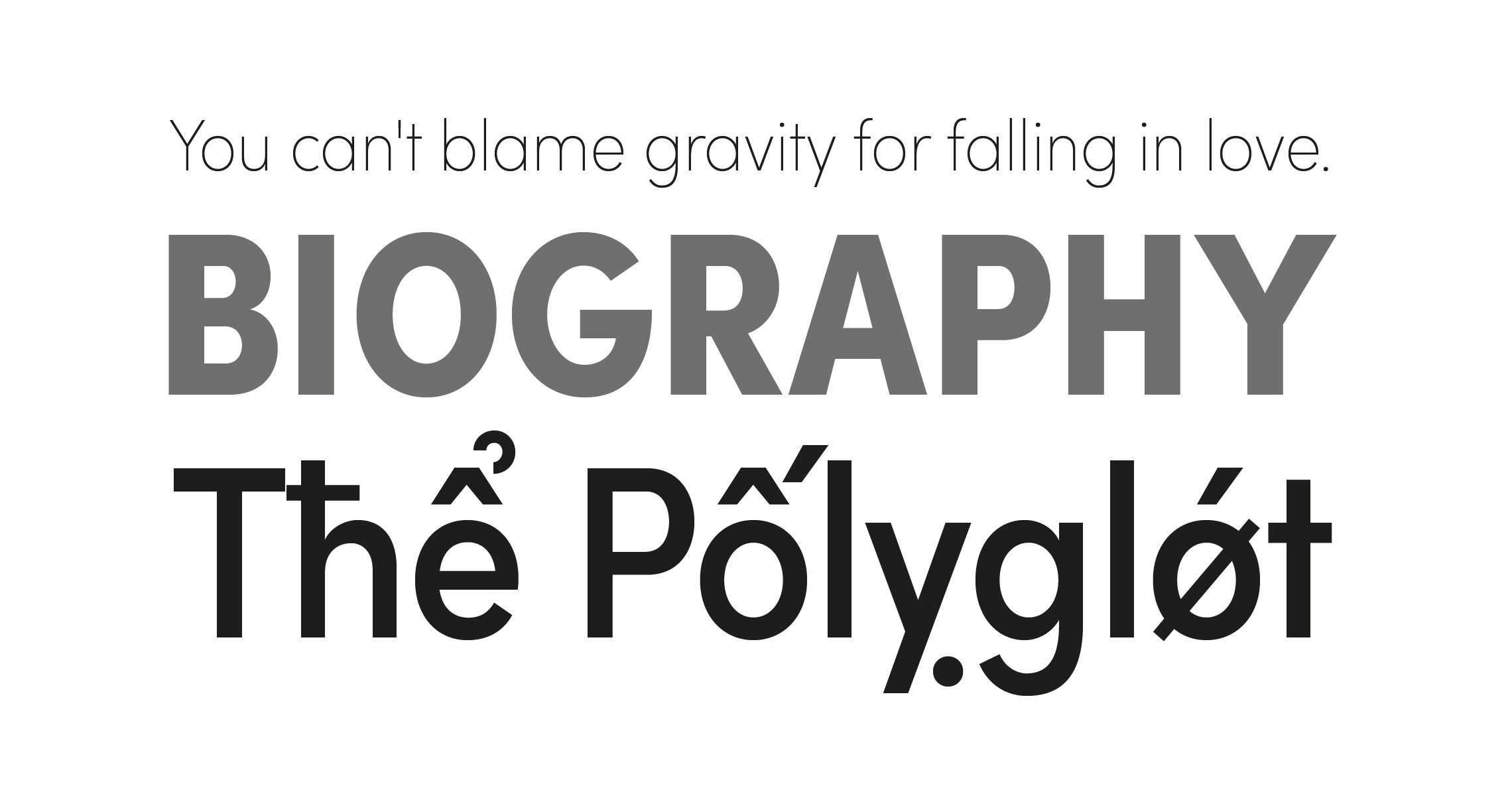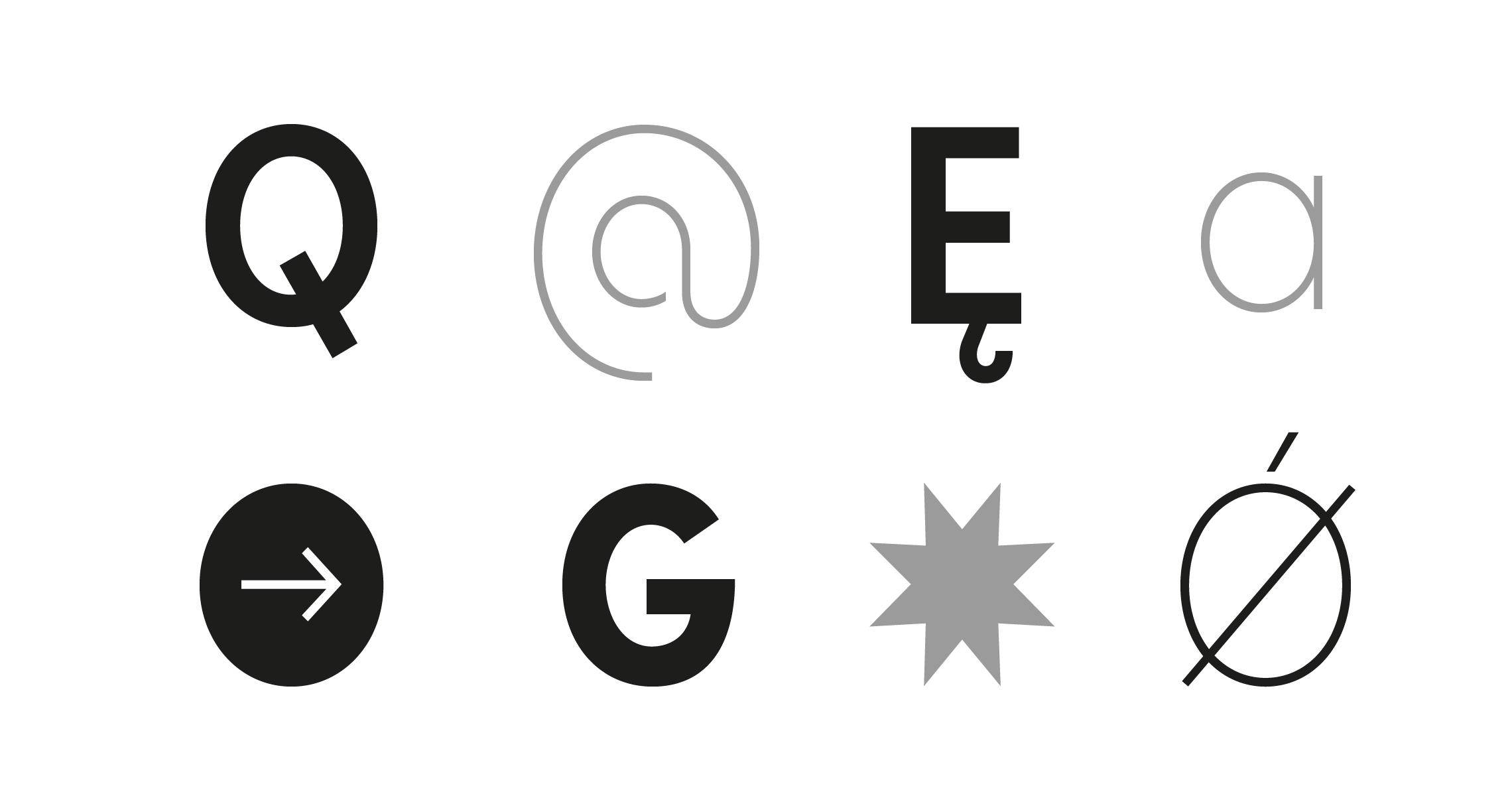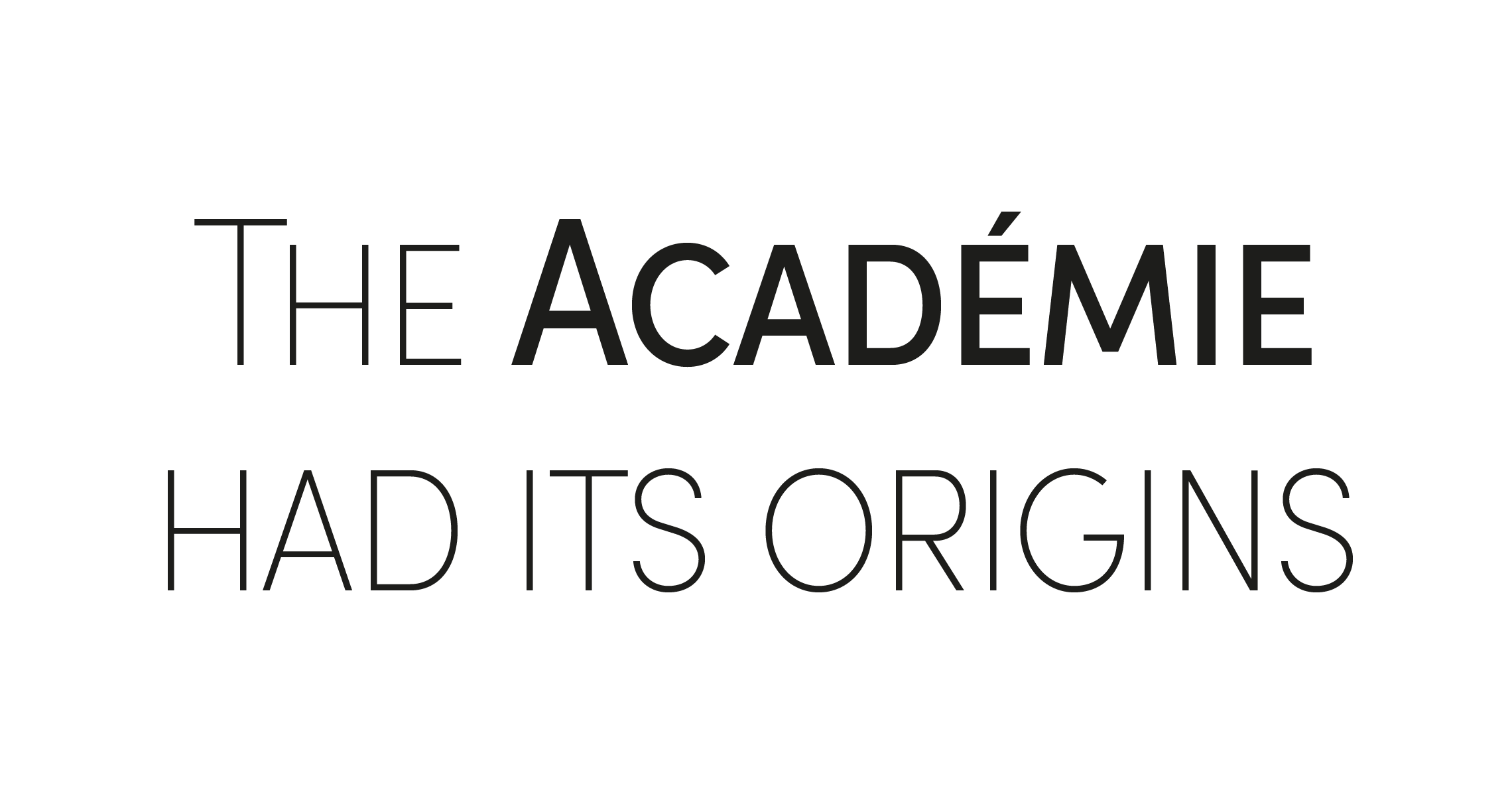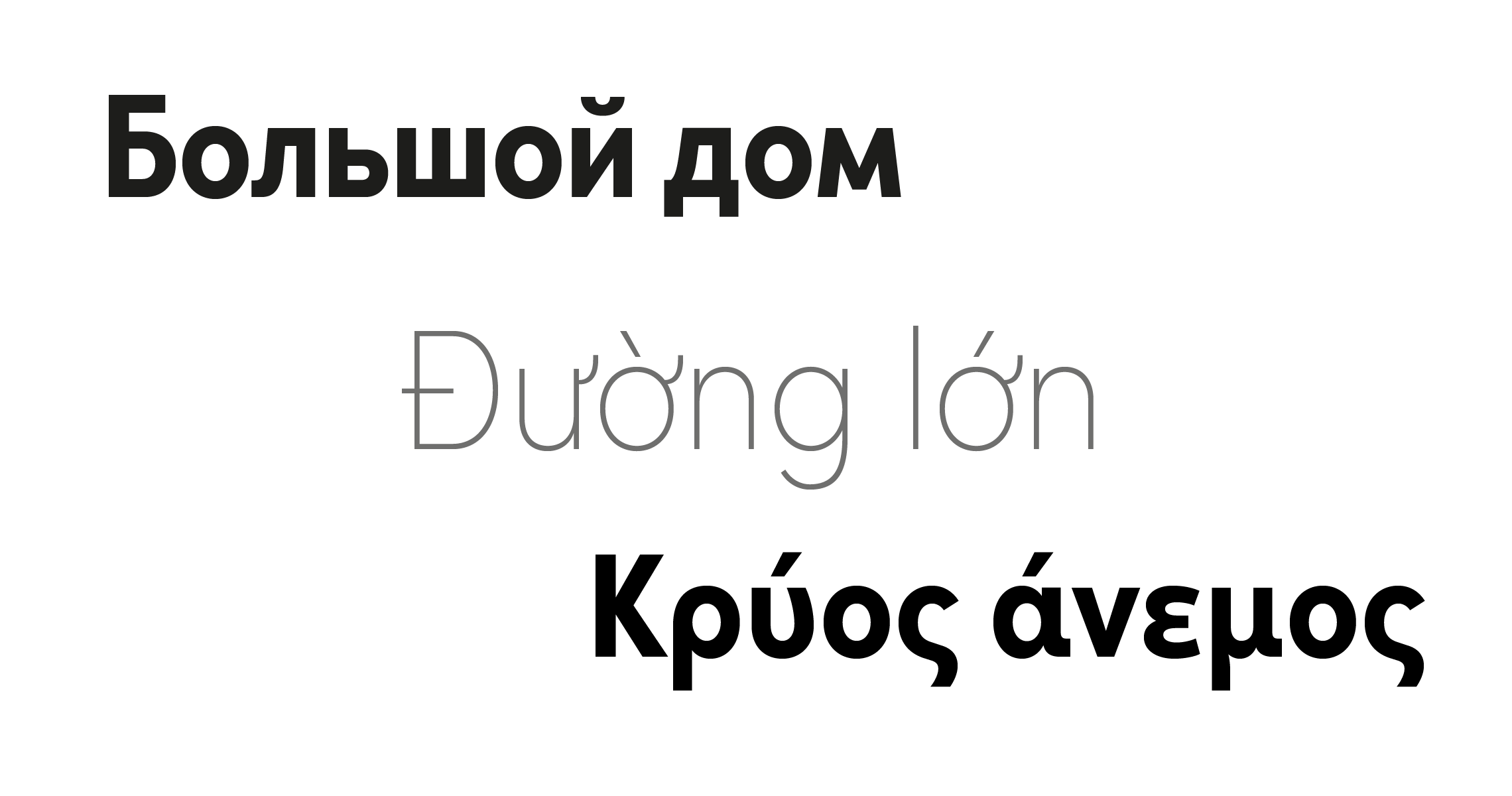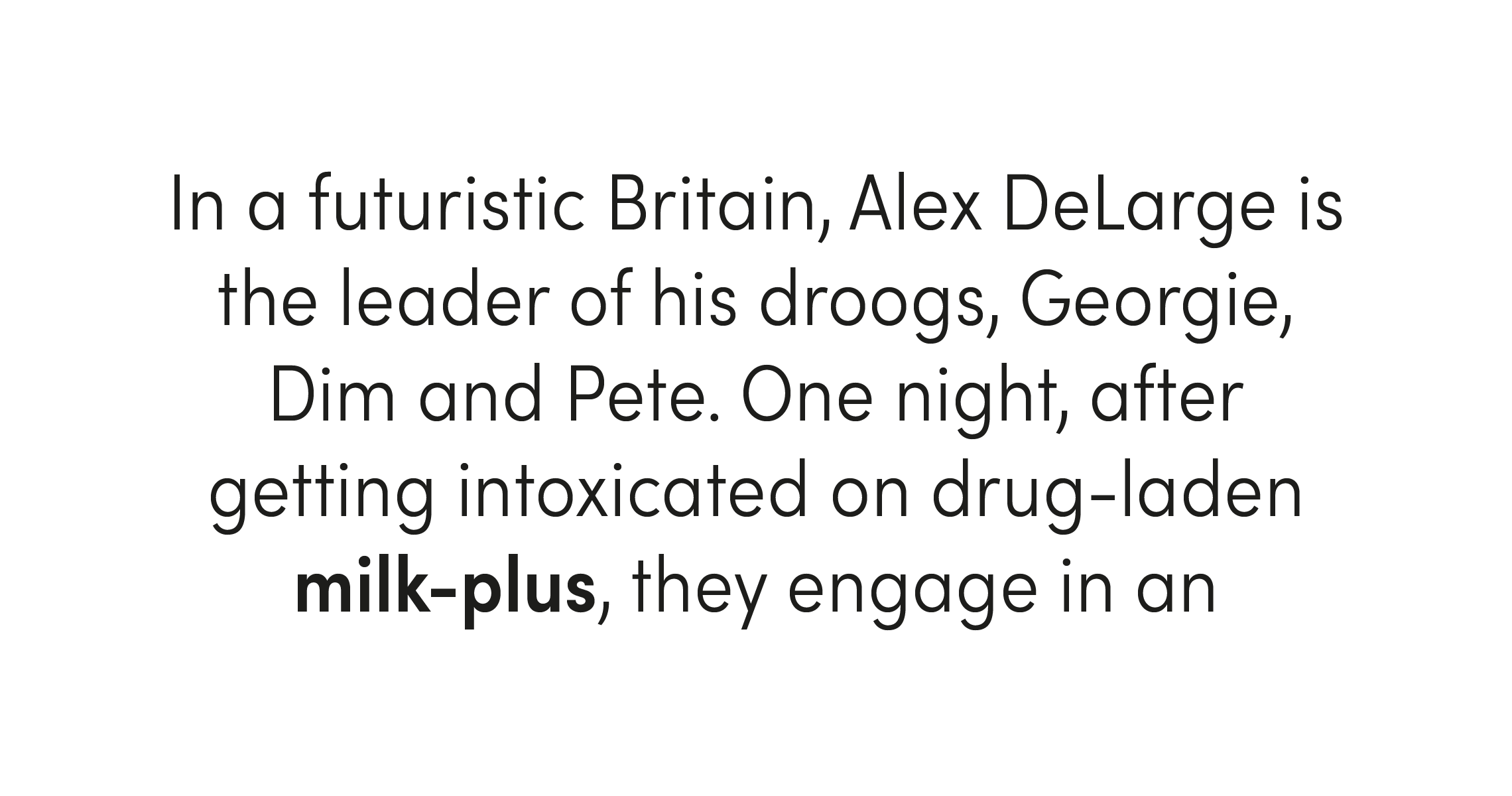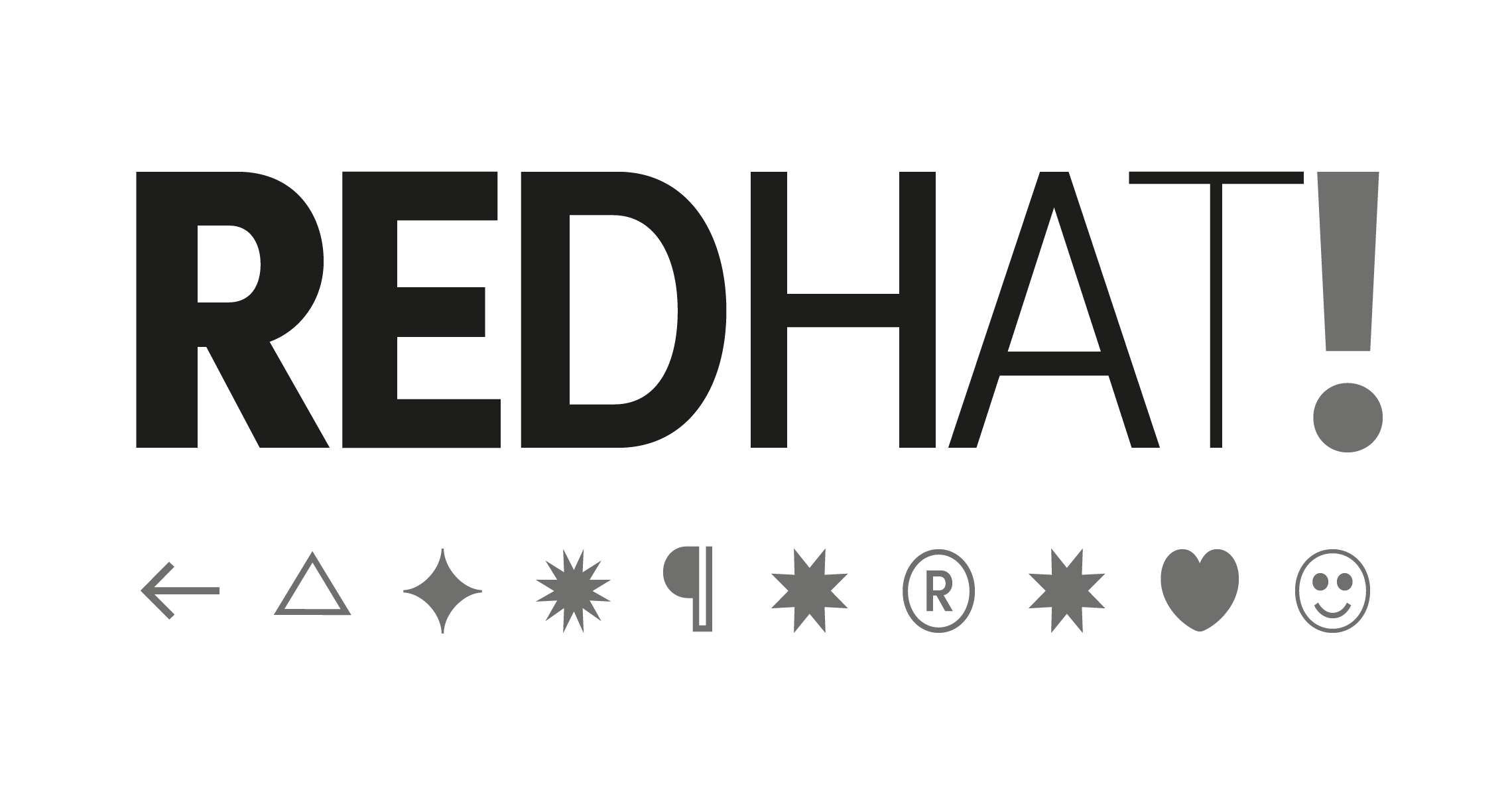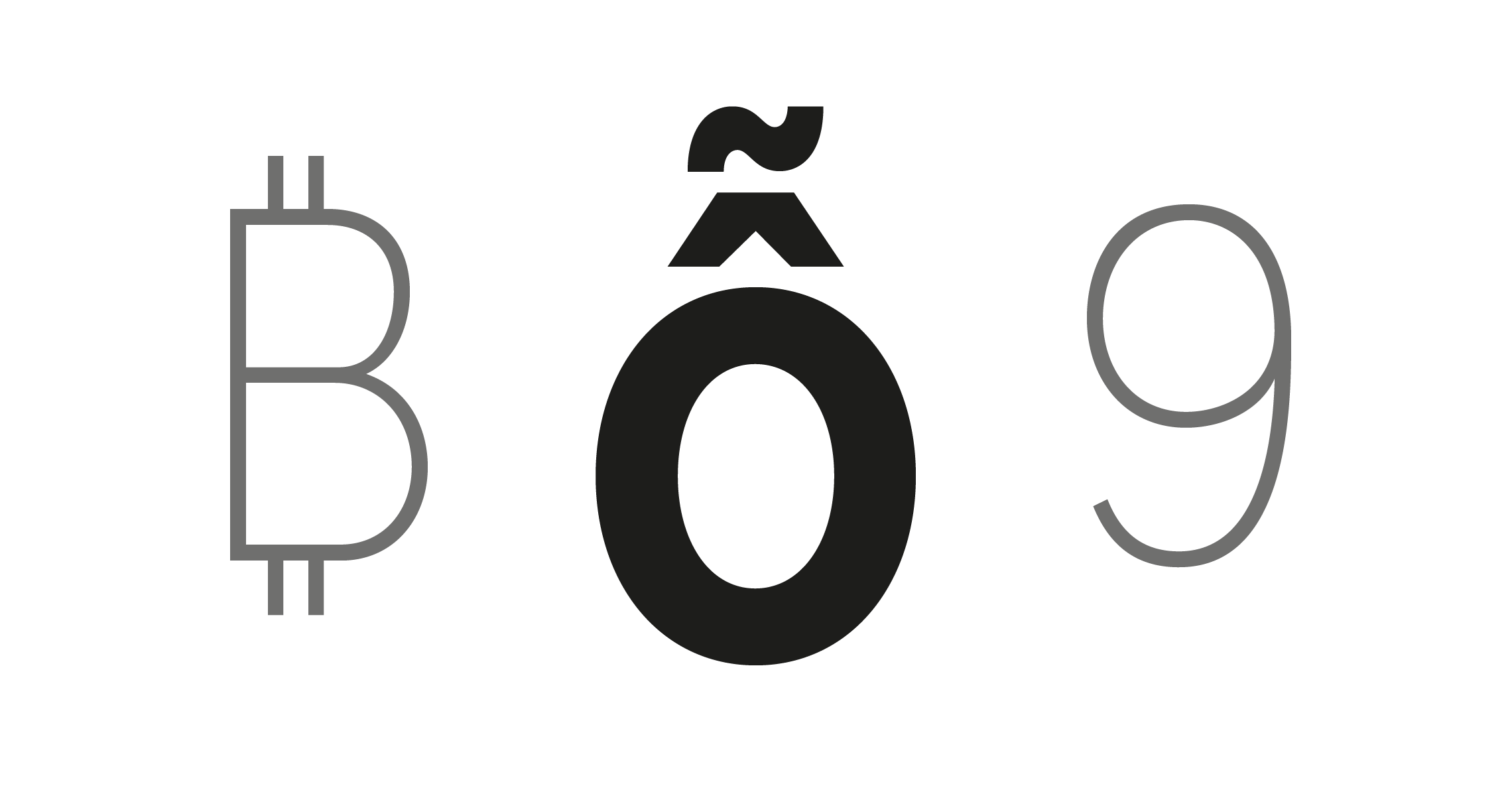
Sofia Pro Narrow
Sleek and Versatile Design
Sofia Pro Narrow retains the modern geometric elegance of the original Sofia Pro while offering a more compact and space-efficient design. With its refined proportions and clean lines, it’s ideal for layouts where clarity and style must fit within tighter spaces.
Featuring multiple weights, extensive language support, and variable font options, Sofia Pro Narrow delivers flexibility without compromising readability. Whether for branding, editorial, or digital design, it provides a sleek, contemporary look with the same warmth and precision that define the Sofia Pro family.
Spacing and Kerning by Igino Marini